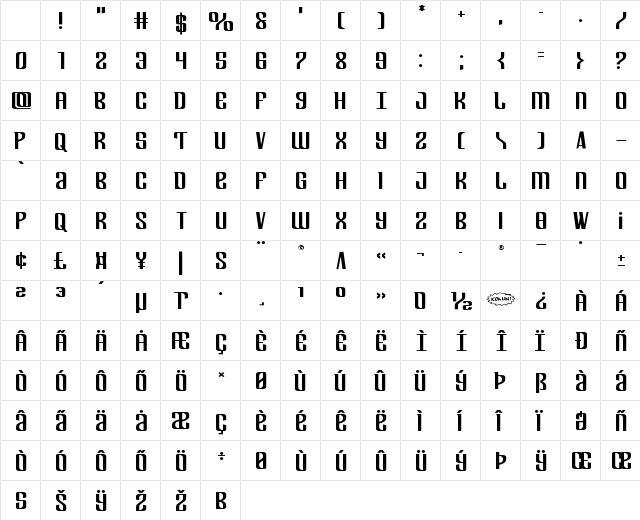
Complete Department H Expanded glyph index. Displaying only characters natively supported by Department H Expanded font.
Department H is a composed and adaptable typeface that performs quietly and consistently across a wide range of design contexts.